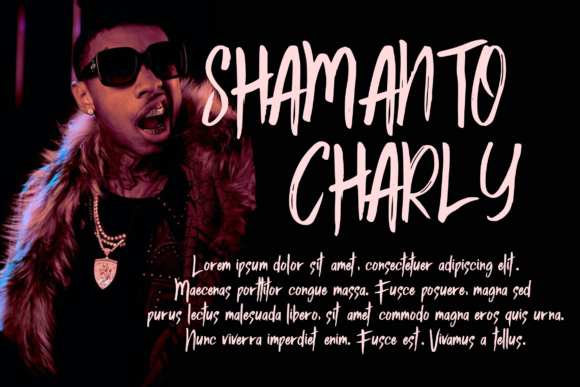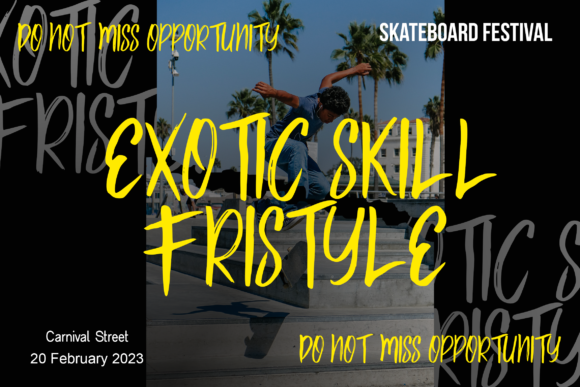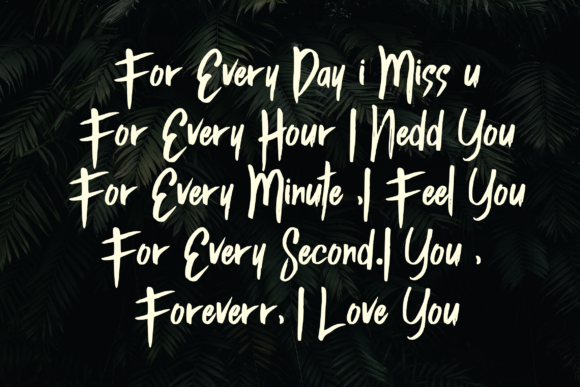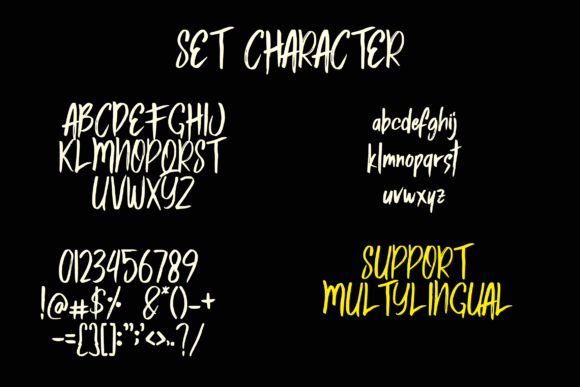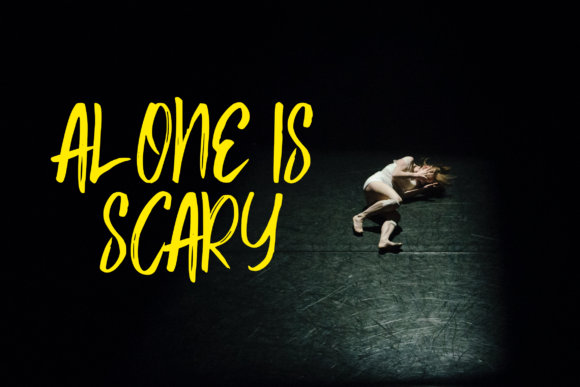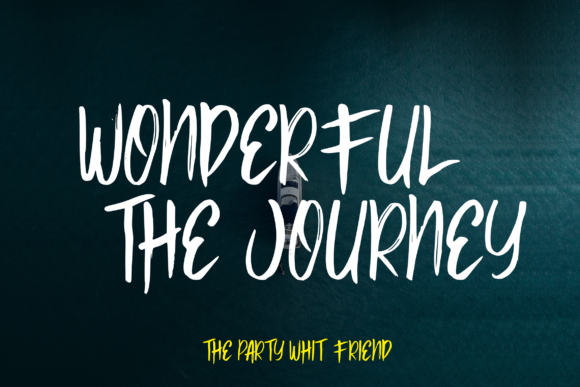
The Ultimate Guide to Banthara Font: A Relaxed and Brushed Display Font
Banthara is a relaxed and brushed display font that’s perfect for designs that need a dash of personality. In this article, we’ll dive into what makes Banthara so special, its strengths and weaknesses, and how to make the most of it in your designs.
An Honest Review of Banthara Font
What I Love About Banthara ✨
- ✅ Unique Brushed Texture: Banthara’s textured strokes give it a one-of-a-kind look that’s perfect for sportswear, t-shirts, and other casual designs.
- ✅ Highly Legible: Despite its relaxed vibe, Banthara remains highly legible, even at smaller font sizes.
- ✅ Versatile: This font is suitable for a wide range of designs, from logos and advertisements to clothing and accessories.
- ✅ Easy to Pair: Banthara pairs well with both serif and sans-serif fonts, making it a great addition to any design.
- ⚠️ Limited Use in Formal Designs: Banthara’s casual nature makes it less suitable for formal designs, such as business cards or corporate branding.
- ⚠️ May Not Be Suitable for Body Text: Due to its textured strokes, Banthara may not be the best choice for body text, especially in smaller font sizes.
The Backstory of Banthara Font
Banthara Font was designed with the intention of capturing the relaxed, casual spirit of modern design. Its creator aimed to craft a font that would be perfect for sportswear, t-shirts, and other casual designs. With its unique brushed texture and highly legible letterforms, Banthara has become a favorite among designers and crafters alike.
| Font Name | Banthara Font |
| Author | Liarttype |
| What is Banthara Font best used for? | Banthara Font is best used for casual designs, such as sportswear, t-shirts, logos, advertisements, and clothing. |
| Is Banthara Font suitable for formal designs? | No, Banthara Font’s casual nature makes it less suitable for formal designs, such as business cards or corporate branding. |
| Can I use Banthara Font for body text? | While Banthara Font is highly legible, its textured strokes may not make it the best choice for body text, especially in smaller font sizes. |
| Is Banthara Font easy to pair with other fonts? | Yes, Banthara Font pairs well with both serif and sans-serif fonts, making it a great addition to any design. |